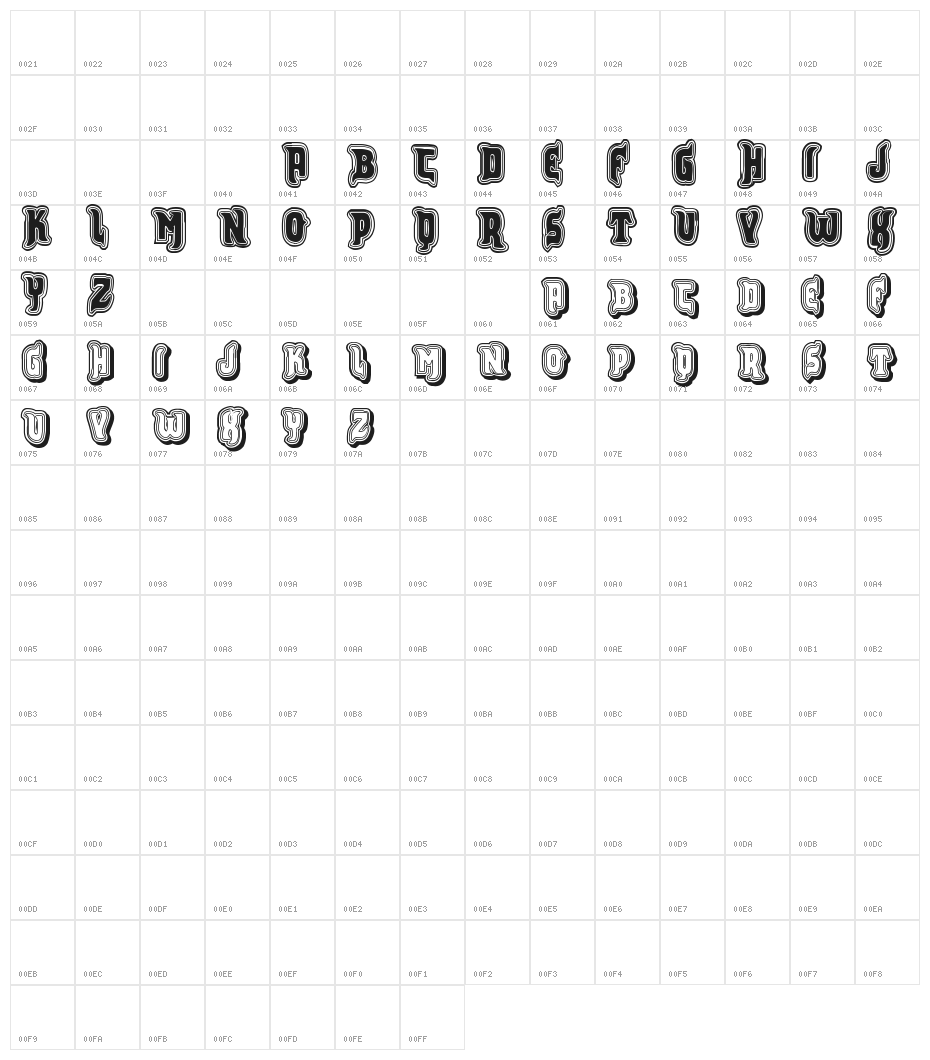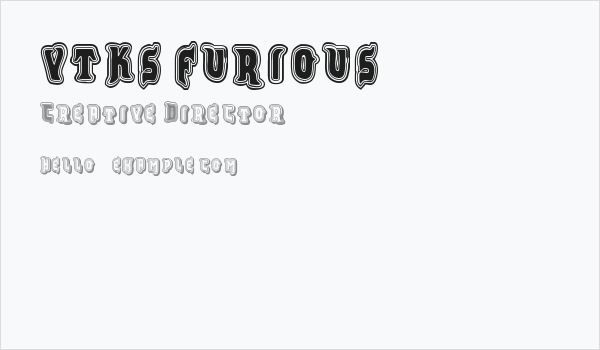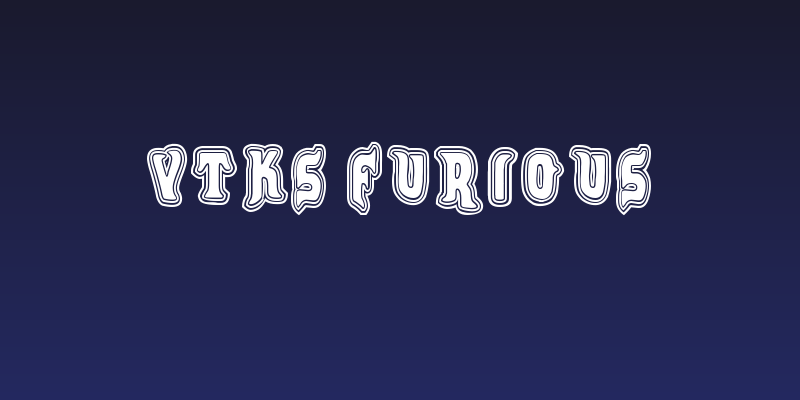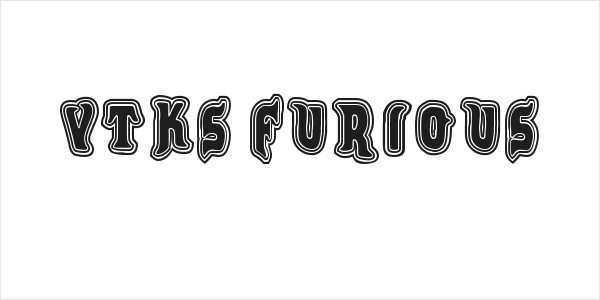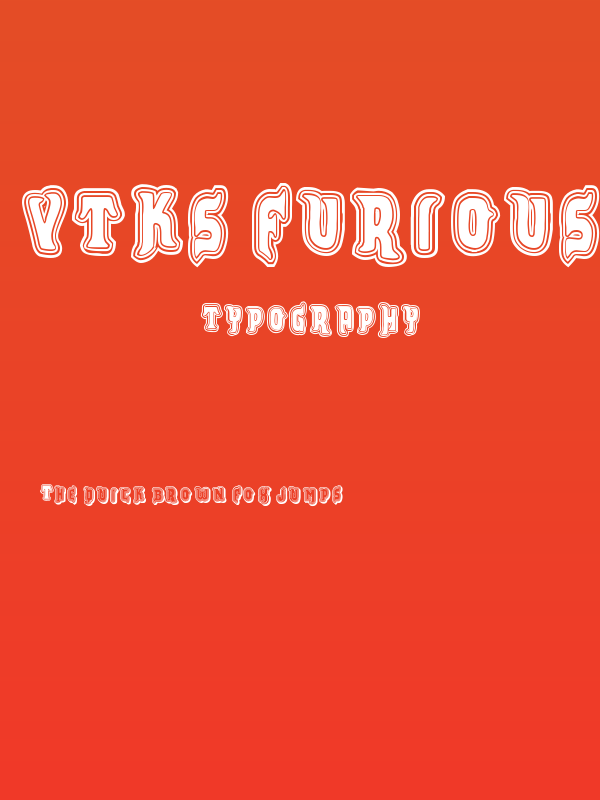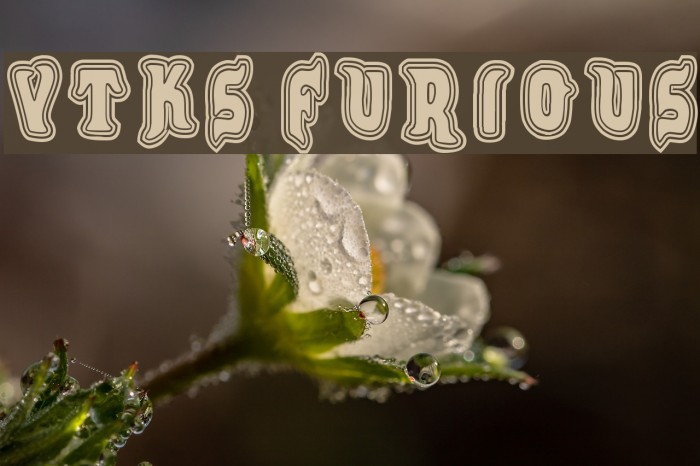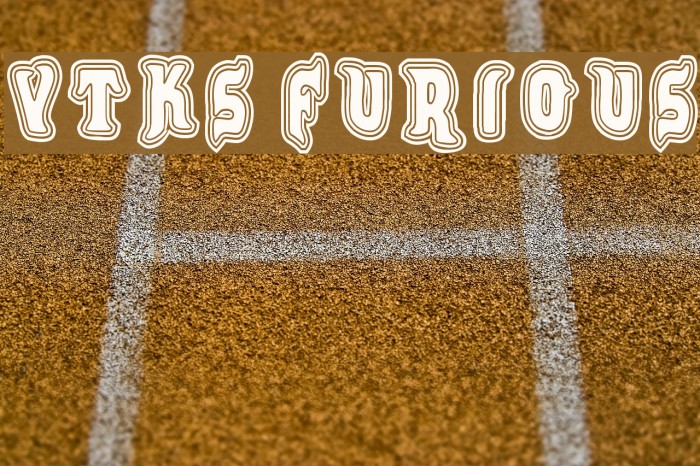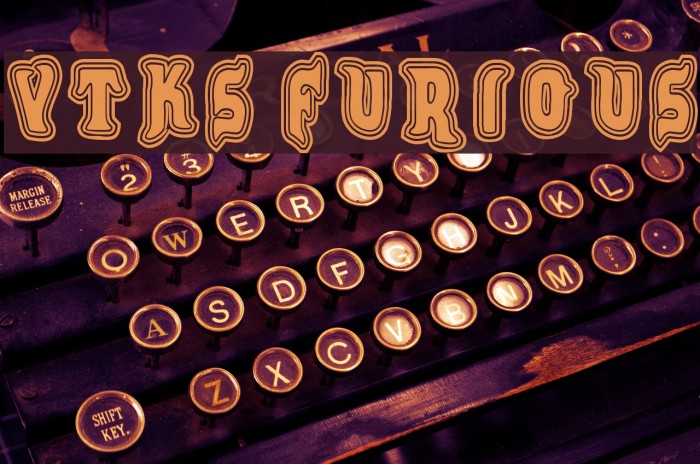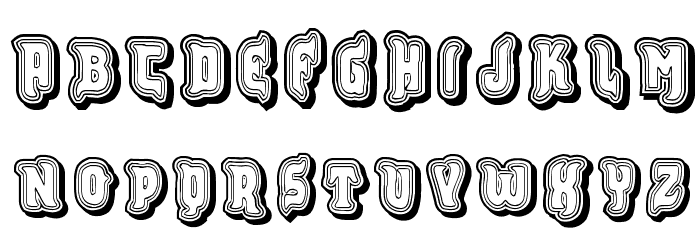
VTKS FURIOUS Font
VTKS FURIOUS Description
This font features a bold, decorative style with a strong, three-dimensional effect. Each character is outlined with a thick, shadow-like border that gives it a striking, layered appearance. The letters are uppercase and have a playful, cartoonish vibe, making them stand out with their unique, chunky forms. The font's design is reminiscent of graffiti or comic book lettering, with exaggerated curves and angles that add to its dynamic and energetic feel. The overall look is both eye-catching and fun, suitable for projects that require a bold statement.
| Proposed Projects | Ideal for posters, comic book titles, graffiti art, and any project needing a bold, playful touch. |